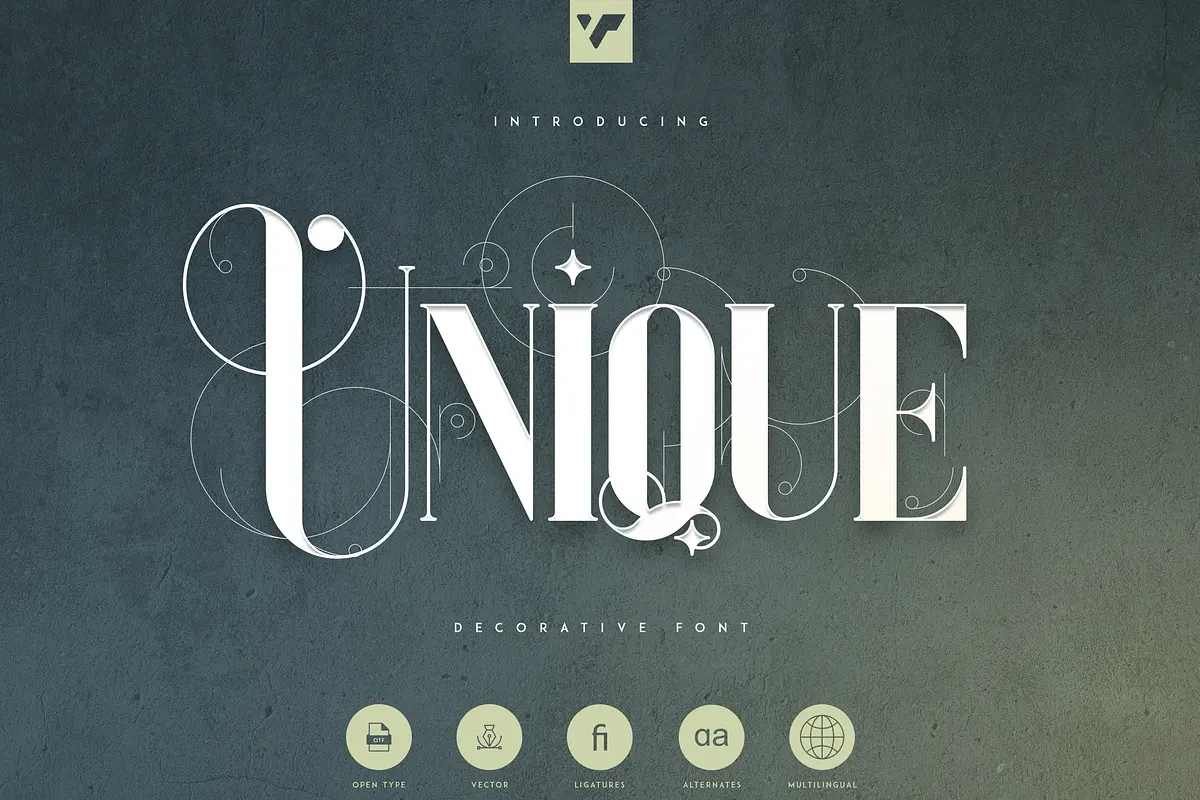
Unique - Decorative Serif Font Free Download
Unique - Decorative Serif Font Free Download is a stylish and elegant serif typeface with intricate detailing, making it perfect for luxury branding, high-end editorial designs, and creative projects that require a touch of sophistication and individuality. Its decorative elements add a level of charm and character that makes your typography stand out in any project.
With its refined serifs and artistic flourishes, Unique is ideal for creating eye-catching logos, invitations, headlines, and posters, especially for brands or projects that aim to evoke elegance and class. Whether you're designing a modern brand identity or a vintage-inspired print piece, this font brings personality and elegance to your designs.
Add a sophisticated, decorative touch to your typography with Unique - Decorative Serif Font Free Download, and make your design projects stand out with a perfect blend of refinement and artistry.